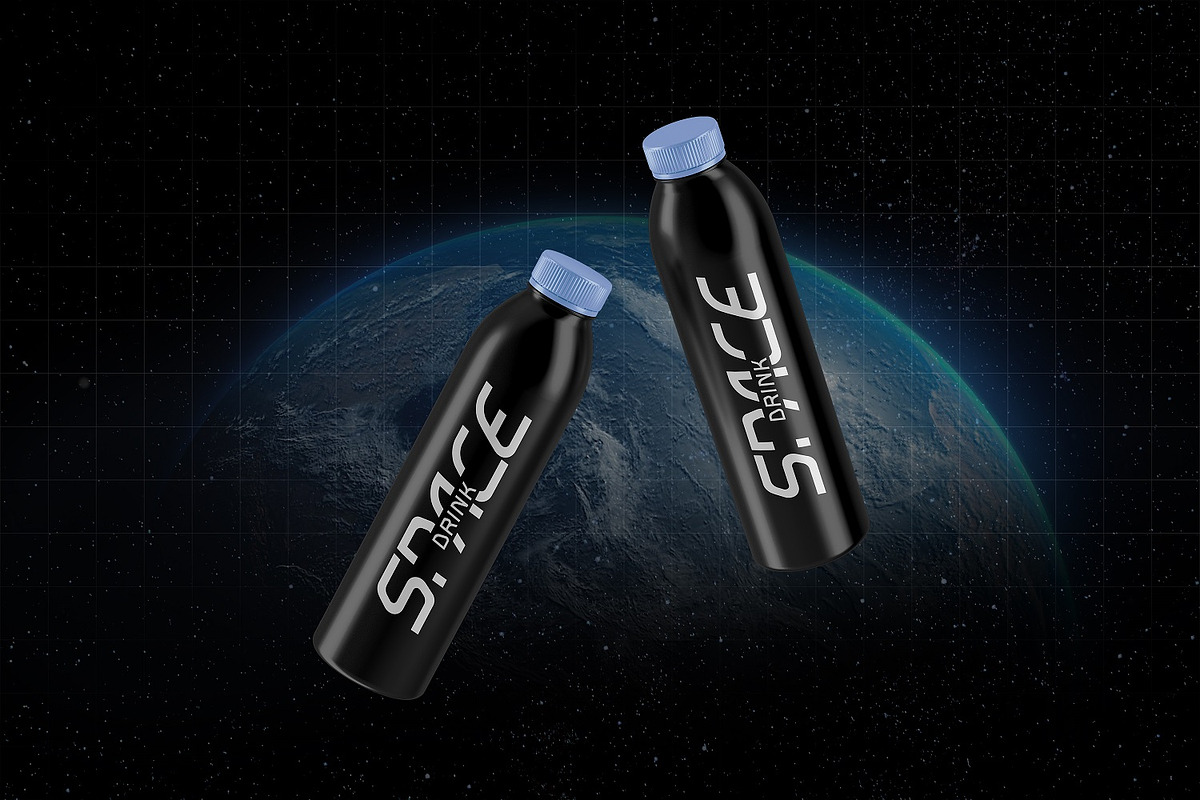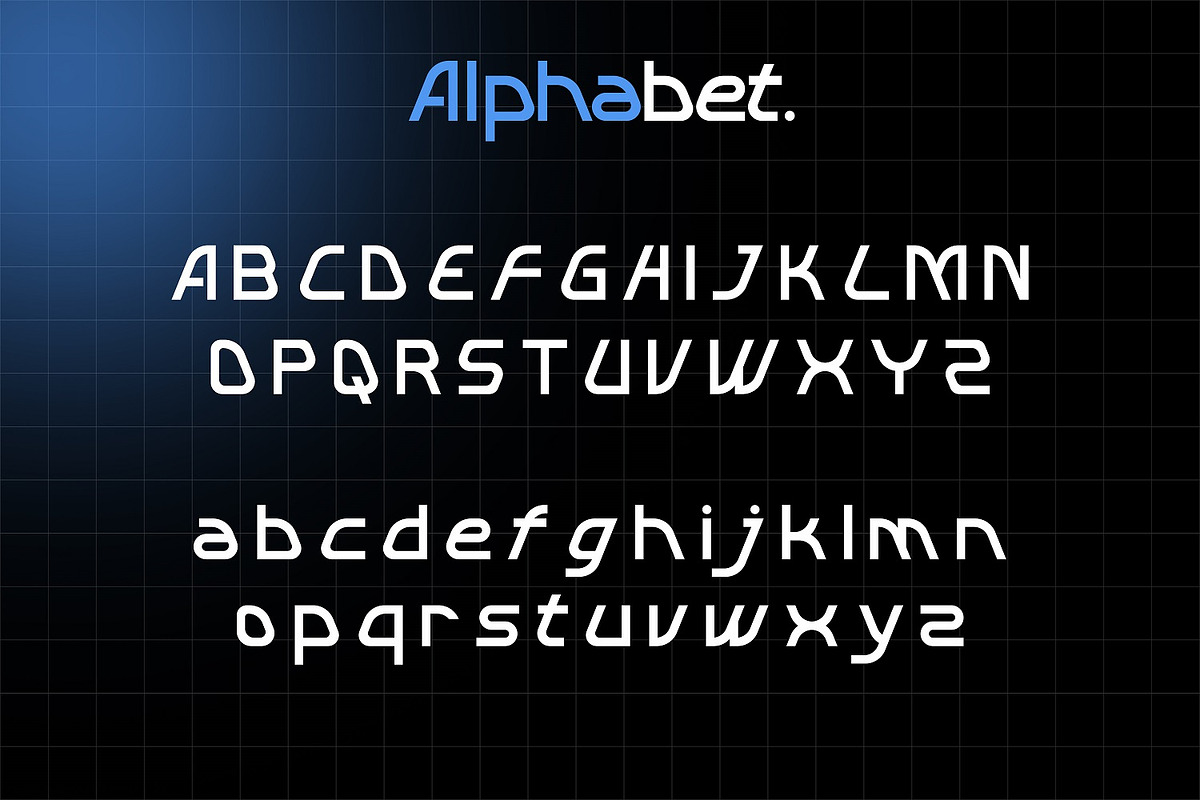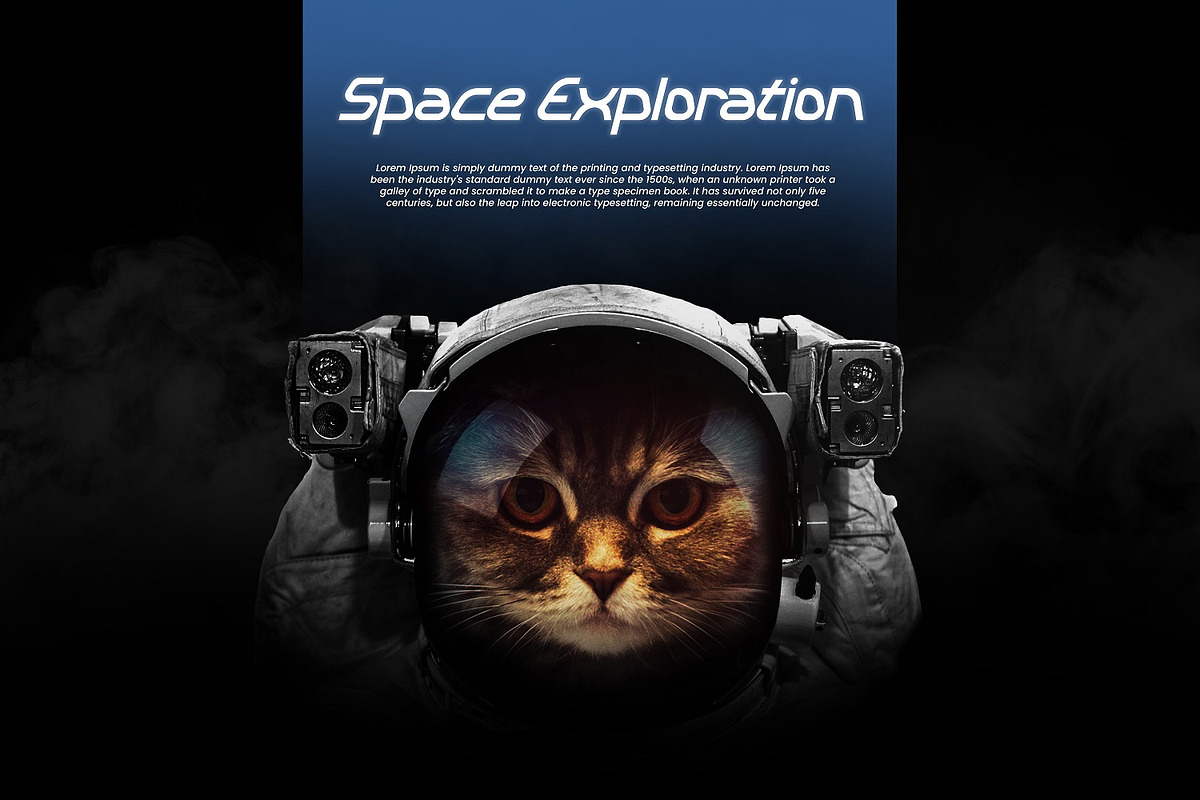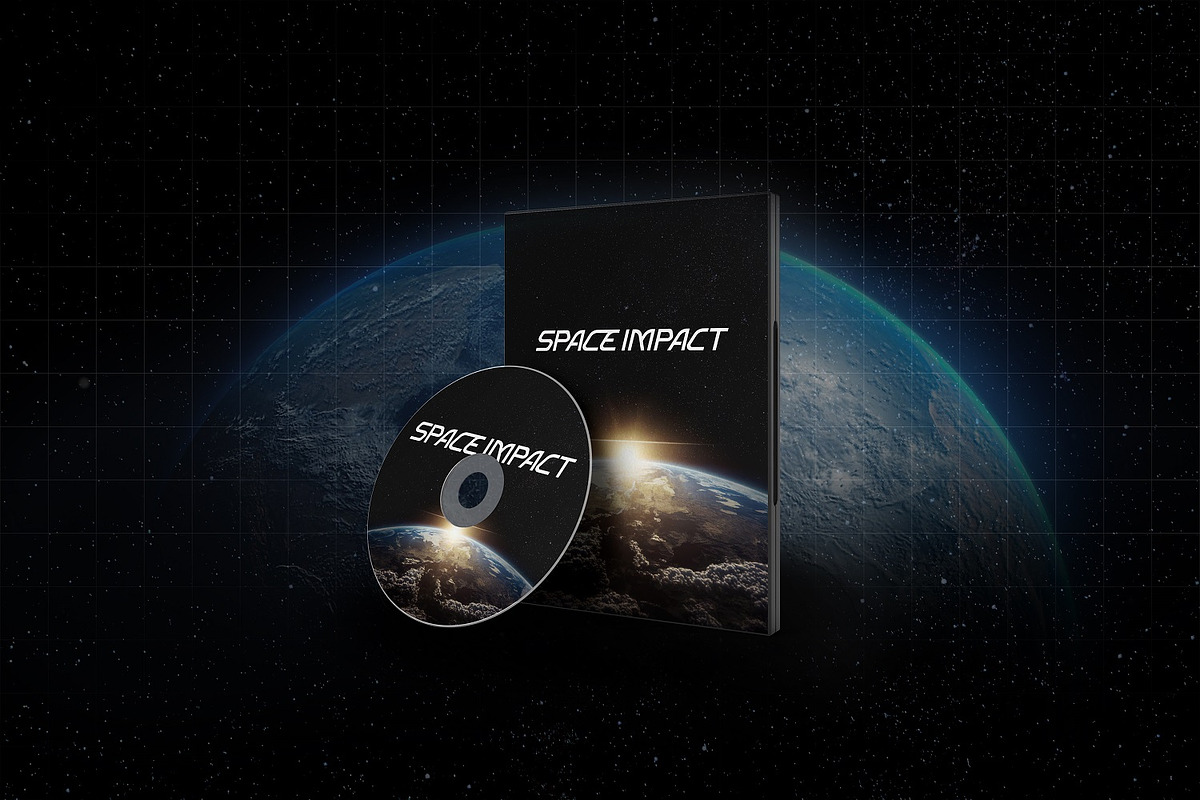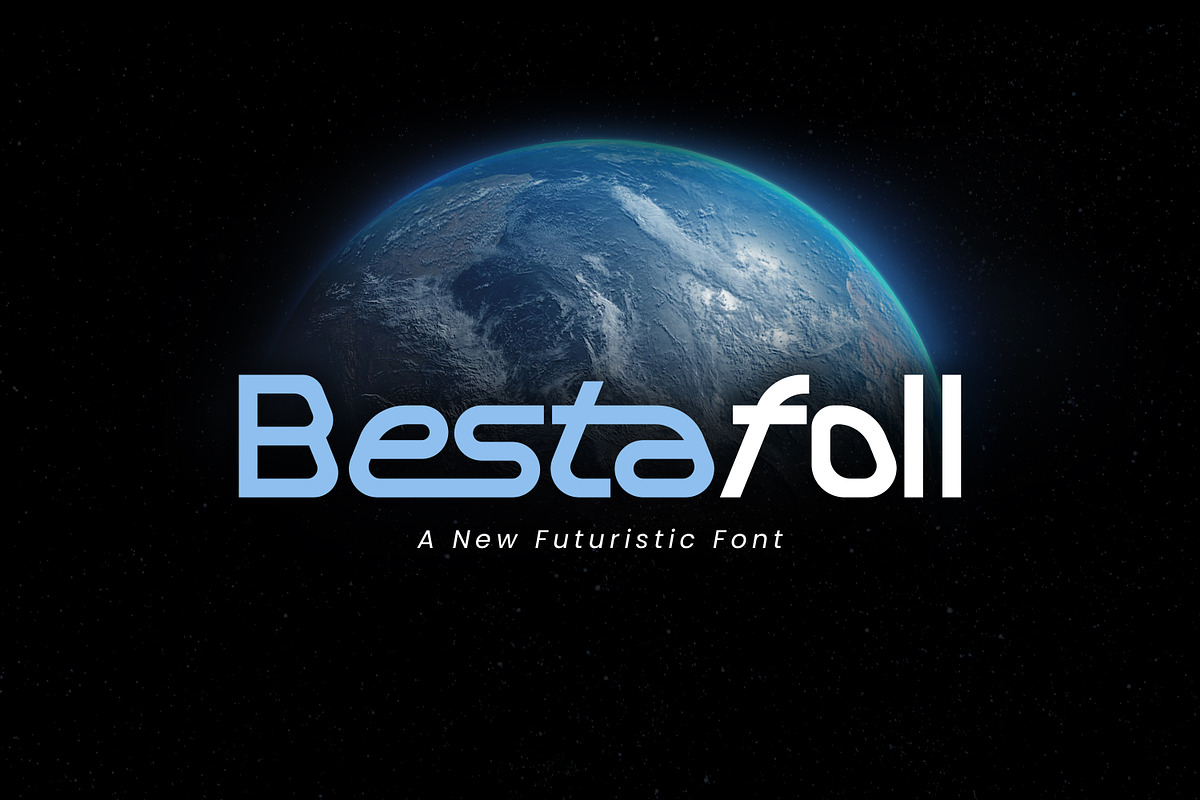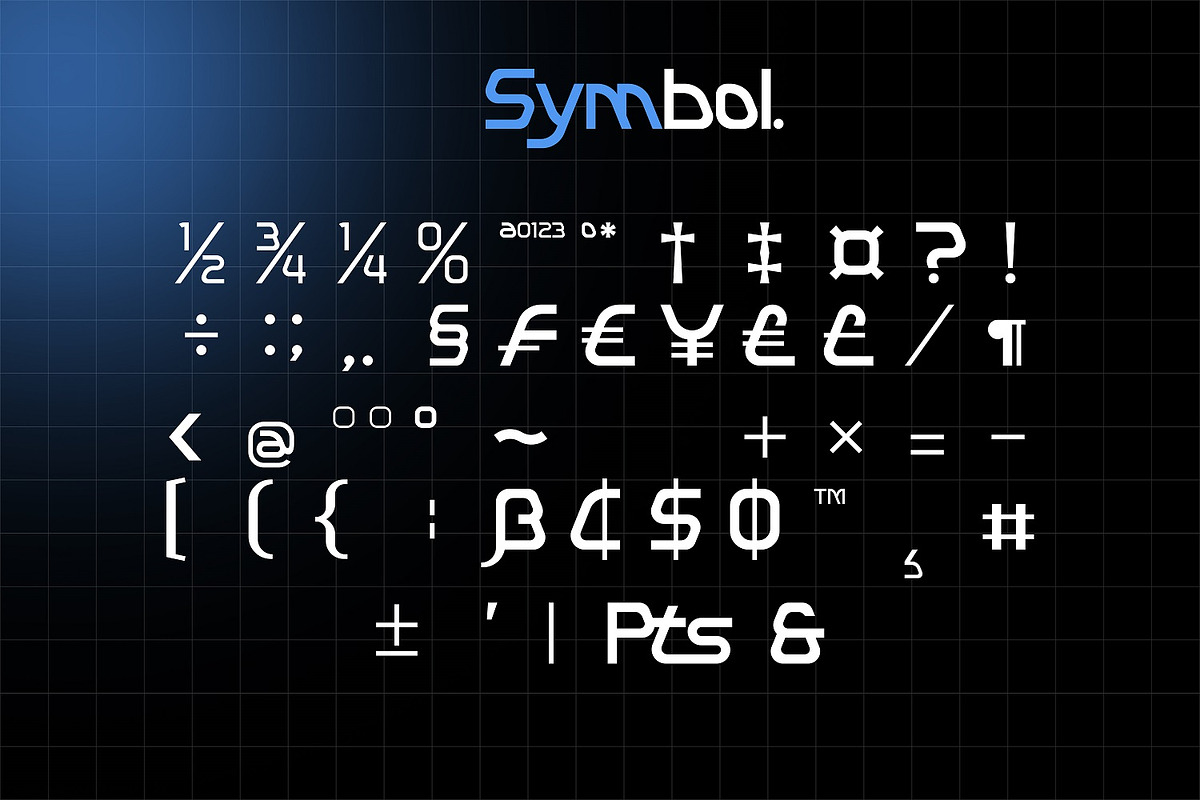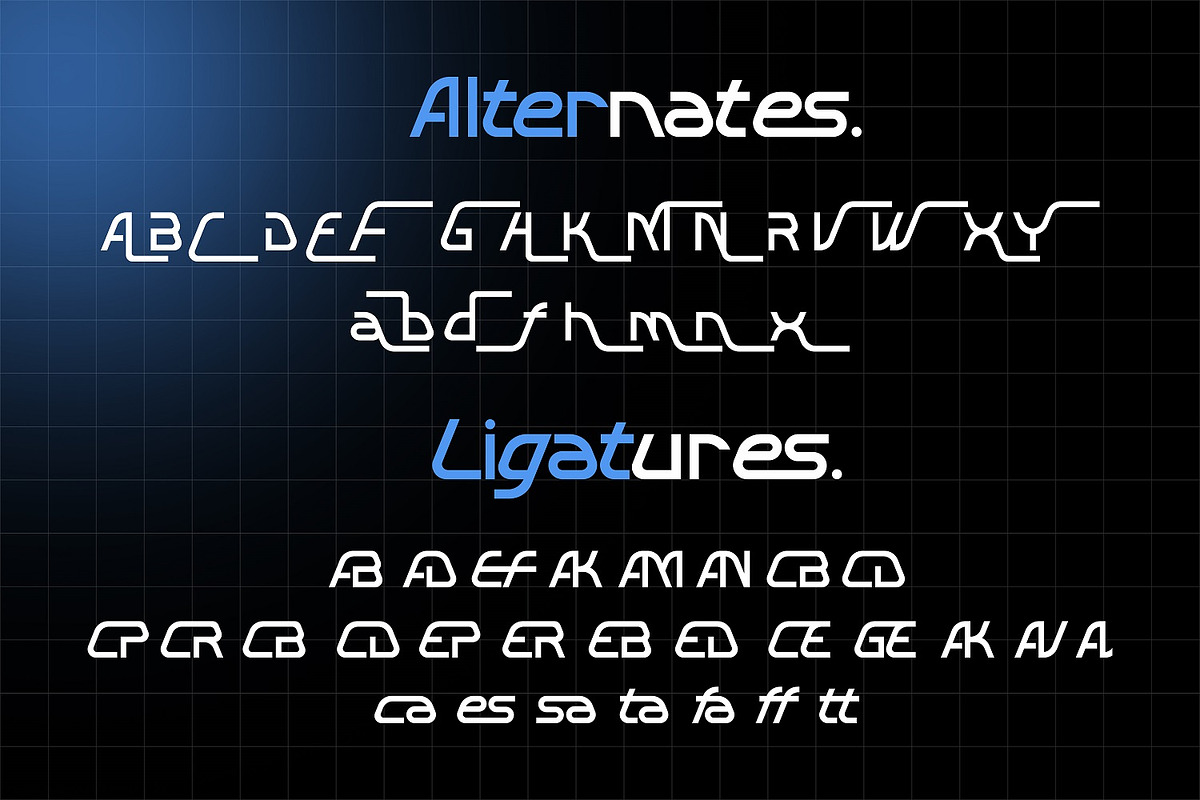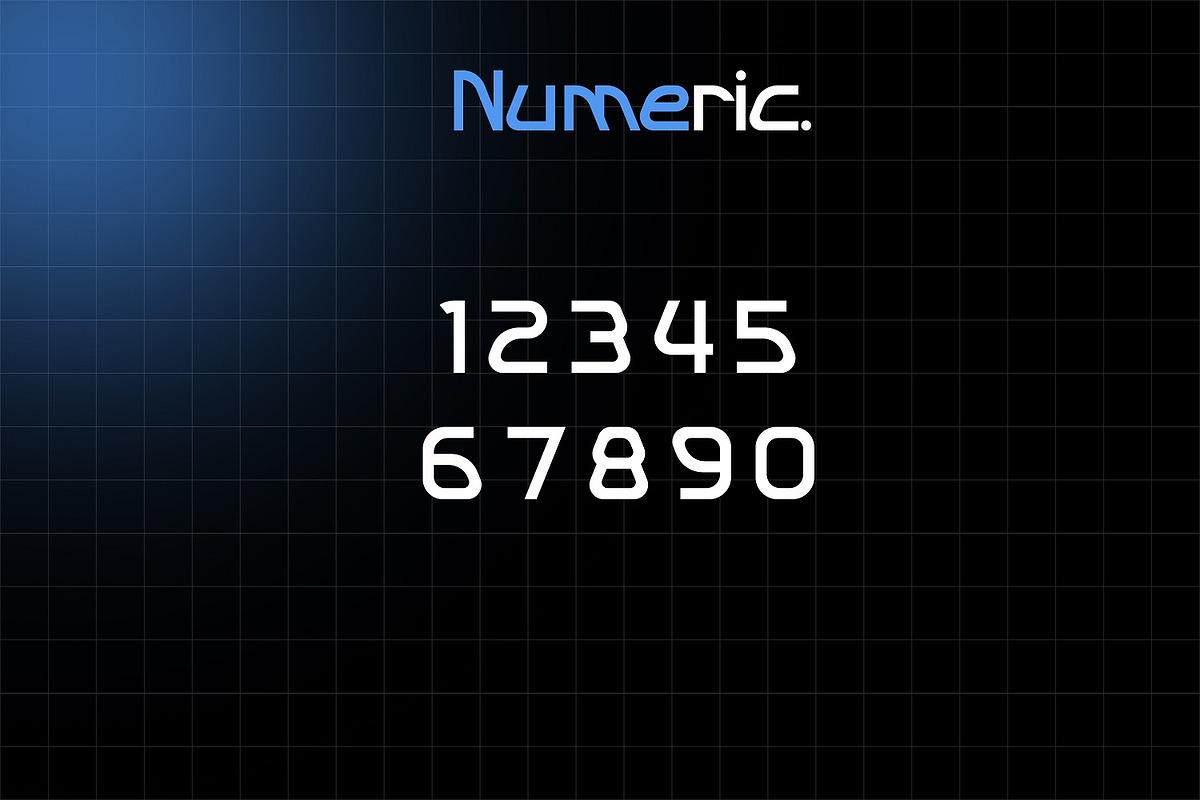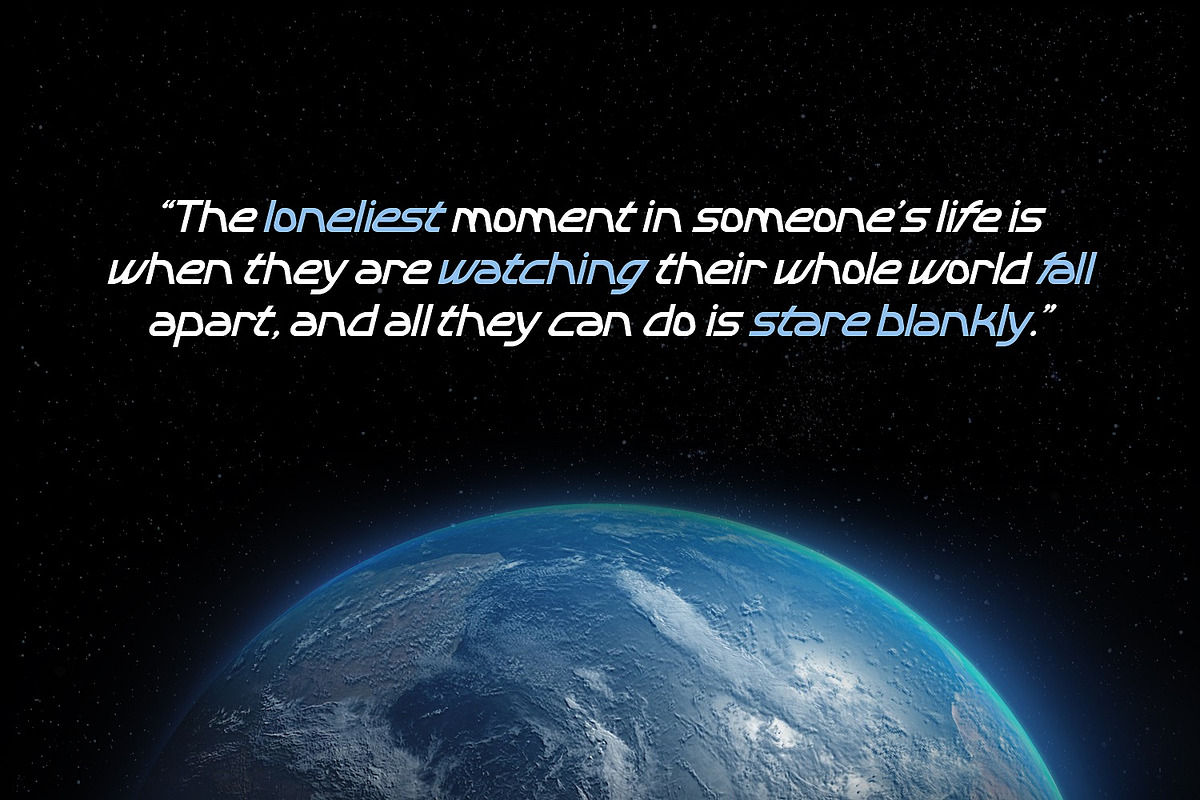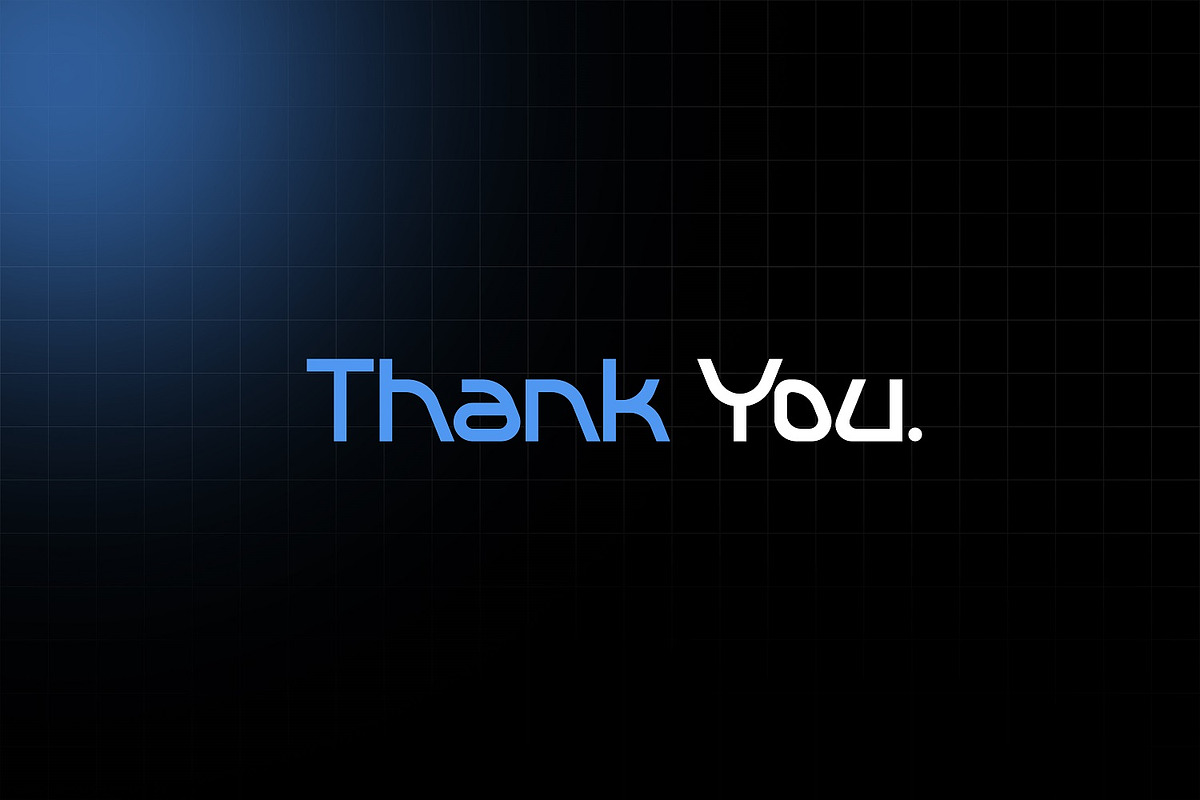
Bestafol
Bestafol - Futuristic Sans Serif Font, from Rishsketch Studios, is a premium Sans Serif Font, perfect for any project that requires a distinctive, and premium feel.
- Ligature, Alternate & amp; Multilingu